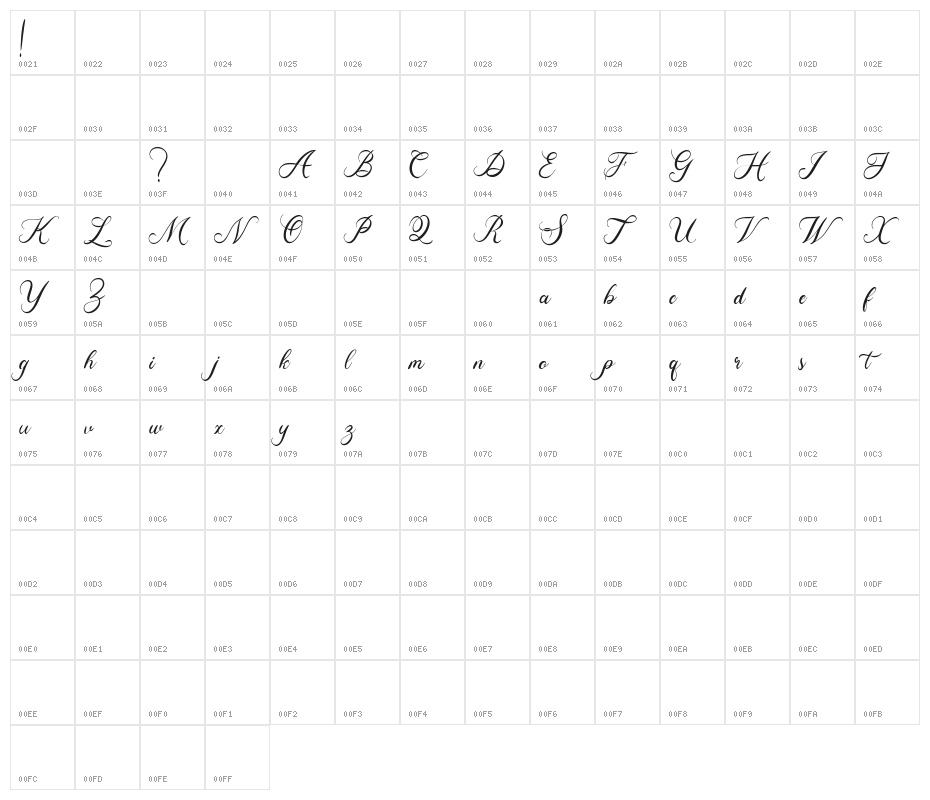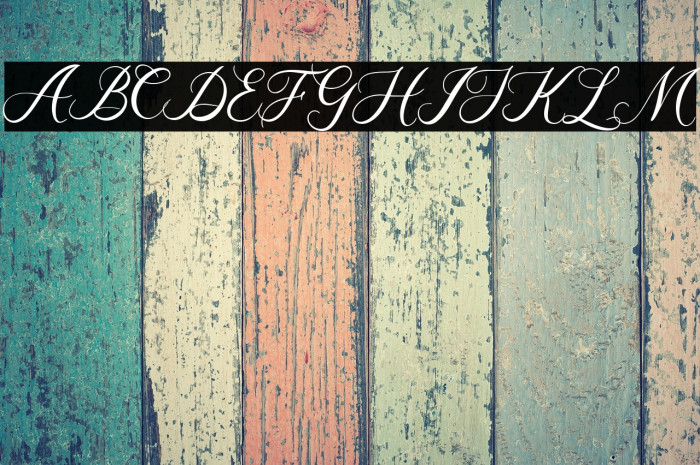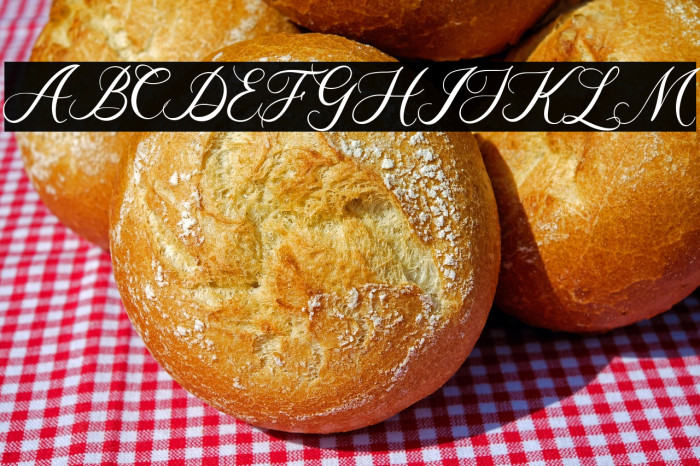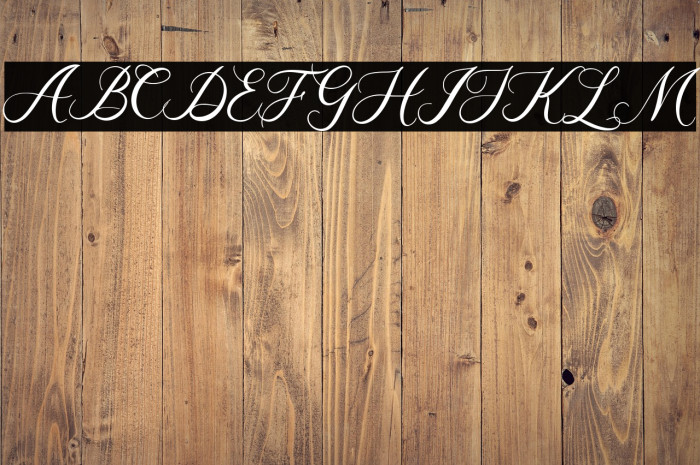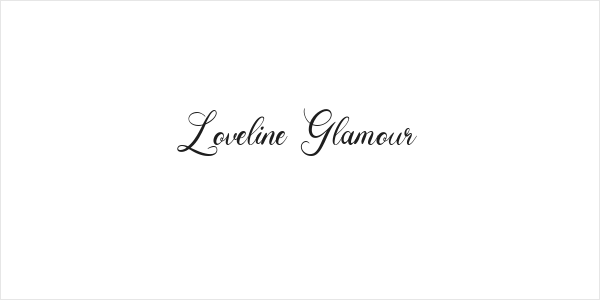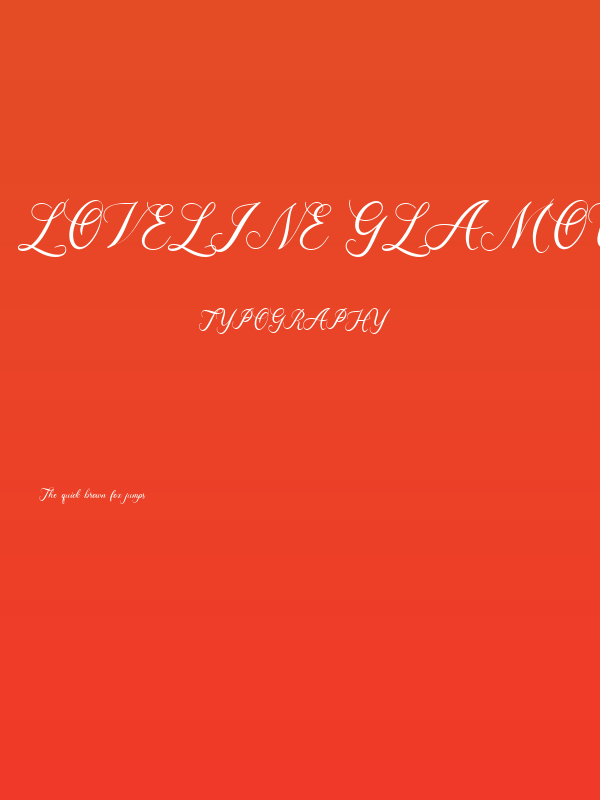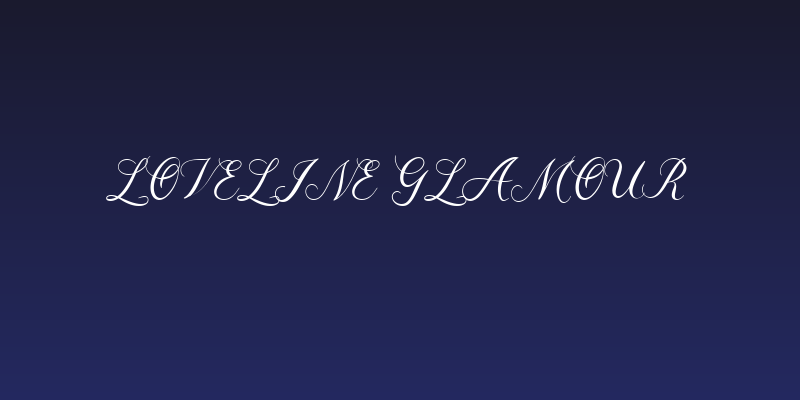
Loveline Glamour Font
Loveline Glamour Description
This elegant script font features graceful, flowing lines with a sophisticated flair. The uppercase letters are characterized by their sweeping curves and delicate loops, giving a sense of movement and fluidity. The lowercase letters maintain a consistent style, with smooth connections and a slightly more compact form. The font's overall appearance is both refined and artistic, making it ideal for projects that require a touch of elegance and class. The characters are well-balanced, with a harmonious blend of thick and thin strokes that add to its charm.
| Proposed Projects | Ideal for wedding invitations, luxury branding, elegant logos, and high-end product packaging. |